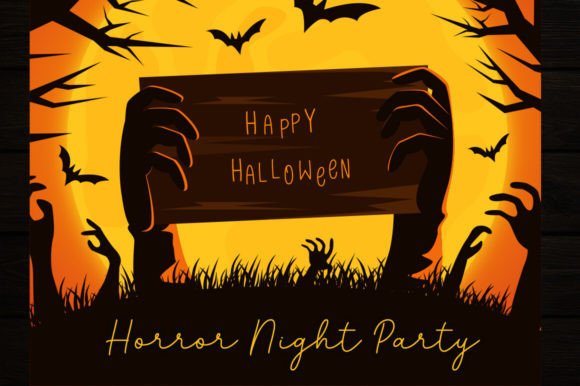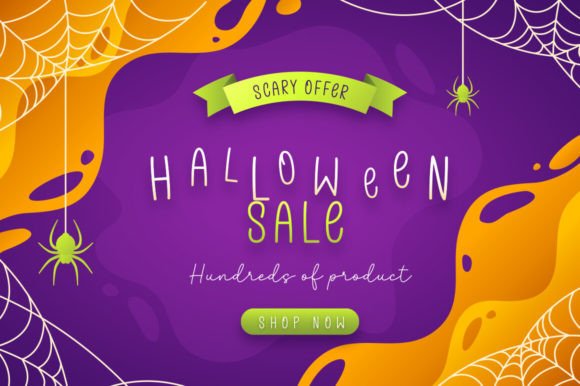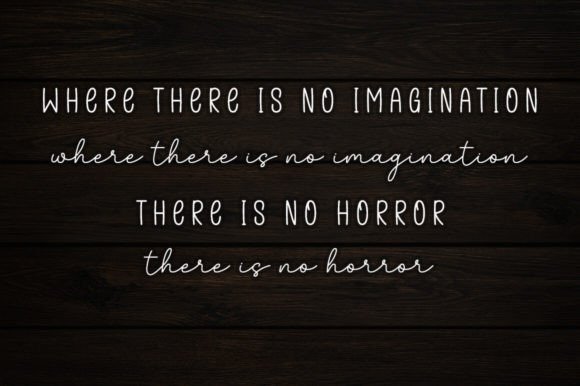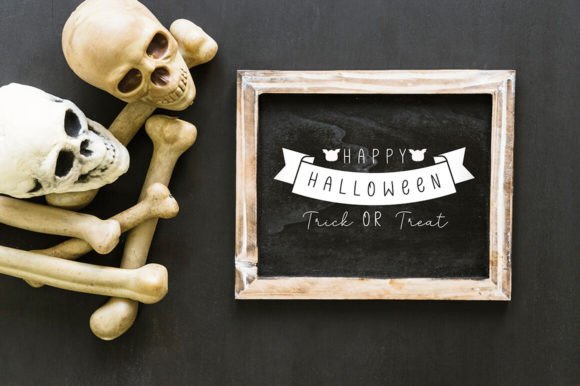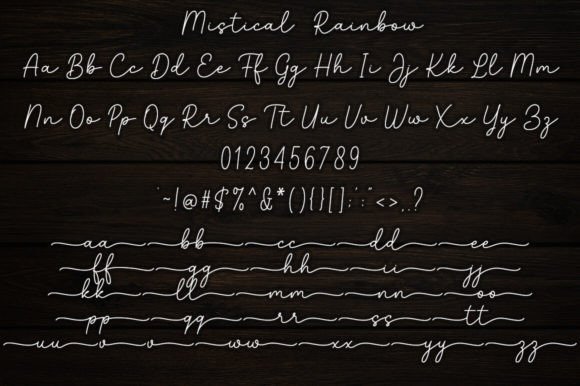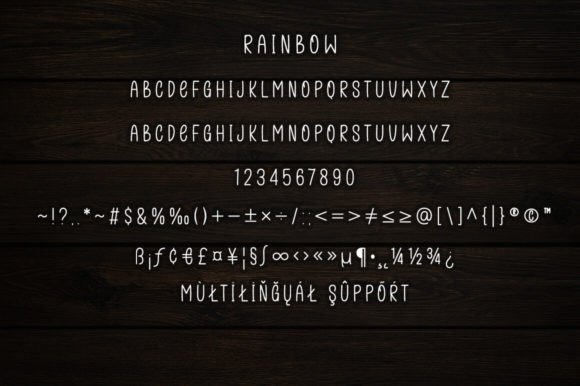
Introduction to Mystical Rainbow Duo Font Font
Fonts play a crucial role in design, and the Mystical Rainbow Duo Font font is a typeface that brings both character and versatility to any project. Whether you’re working on a branding project, a website, or a print design, the Mystical Rainbow Duo Font font offers a unique style that can elevate your work.
Unveil the magical allure of Mystical Rainbow Duo, a harmonious fusion of sans serif and script motifs.
Built with versatility in mind, it is the perfect accompaniment to every project, from heart-touching greeting cards to captivating headlines Its breathtaking typeface enlaces each artwork with an irresistible dash of romance.
Key Features of Mystical Rainbow Duo Font Font
Why Choose Mystical Rainbow Duo Font Font?
The Mystical Rainbow Duo Font font is more than just a typeface – it’s a design tool that helps you communicate your message with style and clarity. Its unique character set and versatile design make it suitable for a wide range of applications, from elegant invitations to bold headlines.
With its carefully crafted letterforms and balanced proportions, the Mystical Rainbow Duo Font font ensures readability and visual appeal across all mediums.
What makes Mystical Rainbow Duo Font font special?
The Mystical Rainbow Duo Font font stands out with its unique design, exceptional readability, and versatility across various design applications.